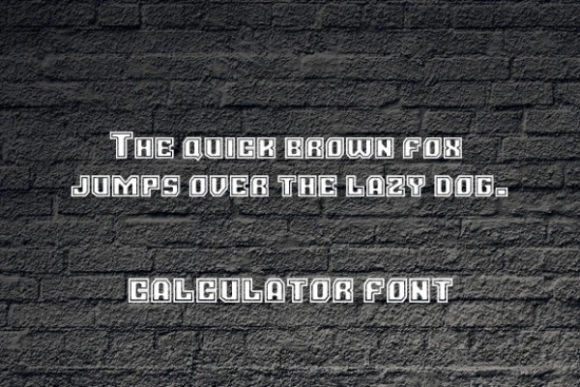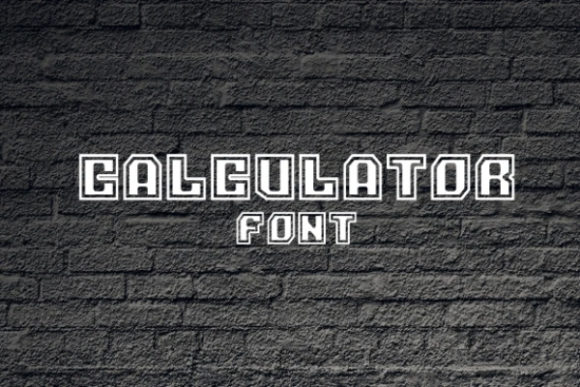
Introducing Calculator Font: A Stunning Display Font for Creative Projects
In the world of typography, fonts play a crucial role in conveying messages, evoking emotions, and adding aesthetic appeal to designs. For designers, crafters, and creative enthusiasts, finding the right font can make all the difference in bringing their projects to life. If you’re on the hunt for a beautiful display font that can elevate your headlines, text blocks, and overall visual identity, look no further than Calculator Font.
What is Calculator Font?
Calculator Font is a stunning display font designed to make a statement. Its unique charm and character make it an excellent choice for a wide range of applications, from web and print to moving images and beyond. This fantastic typeface is best suited for headlines of all sizes, as well as for blocks of text that require both maximum and minimum variations.
Key Features of Calculator Font
- Versatility: Calculator Font is an incredibly versatile font that can be used for various purposes, including headlines, titles, and text blocks.
- Legibility: The font boasts excellent legibility, making it easy to read and understand, even at smaller sizes.
- Aesthetic Appeal: Calculator Font has a unique and captivating design that adds a touch of elegance and sophistication to any project.
- Flexibility: The font is suitable for a wide range of applications, including web, print, moving images, and more.
Use Cases for Calculator Font
Calculator Font is an excellent choice for various design projects, including:
- Web Design: Use Calculator Font to create stunning headlines, titles, and text blocks for your website, adding a touch of elegance and sophistication to your online presence.
- Print Design: Calculator Font is perfect for print materials, such as brochures, posters, flyers, and business cards, where a bold and eye-catching font is needed.
- Moving Images: The font’s unique design and excellent legibility make it an excellent choice for video titles, subtitles, and text overlays.
- Crafting and DIY Projects: Calculator Font can add a creative and personal touch to handmade crafts, such as journals, planners, and art pieces.
Why Choose Calculator Font?
With so many fonts available, why choose Calculator Font? Here are a few reasons:
- Unique Design: Calculator Font has a distinctive design that sets it apart from other fonts, making it an excellent choice for designers looking to add a touch of personality to their projects.
- High-Quality: The font is designed with high-quality and precision, ensuring that it looks great at any size.
In conclusion, Calculator Font is a beautiful display font that can elevate your design projects to new heights. Its versatility, legibility, aesthetic appeal, and flexibility make it an excellent choice for a wide range of applications. Whether you’re a designer, crafter, or creative enthusiast, Calculator Font is sure to become a valuable addition to your font collection. So why wait? Download Calculator Font today and experience the power of stunning typography in your projects!